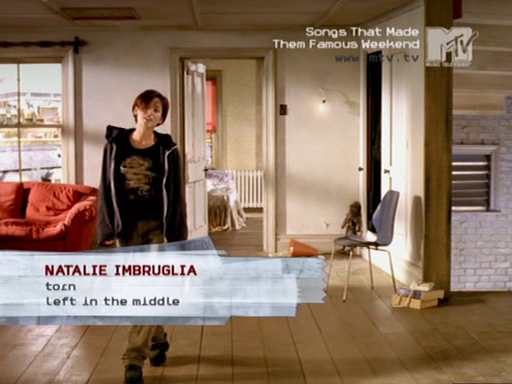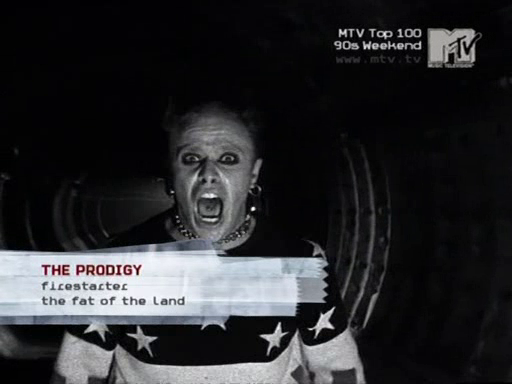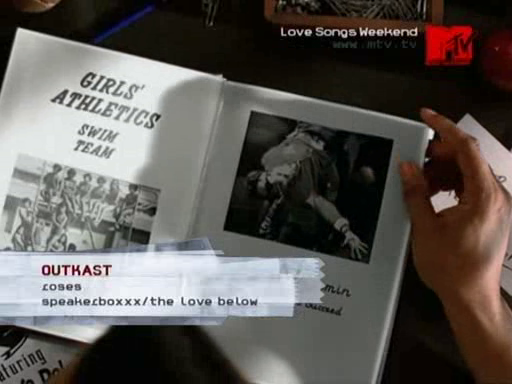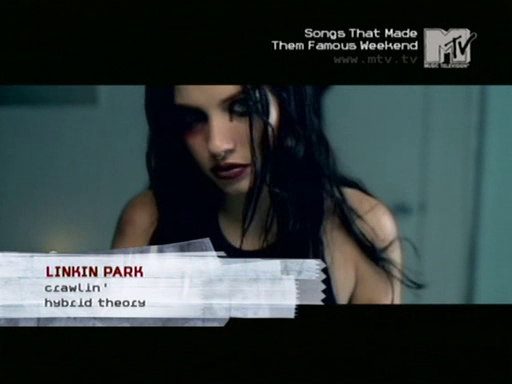
MTV Europe / Central 2005 font
I'm trying to identify a screen/display font used by MTV Europe and MTV Central around 2005. I've attached some screenshots. The artist name, song title, and program name are all written in this specific typeface.
It's a monospaced font, with several distinctive letterforms. It might have been a custom typeface created specifically for MTV, and possibly never released publicly — but I figured it's worth asking here.